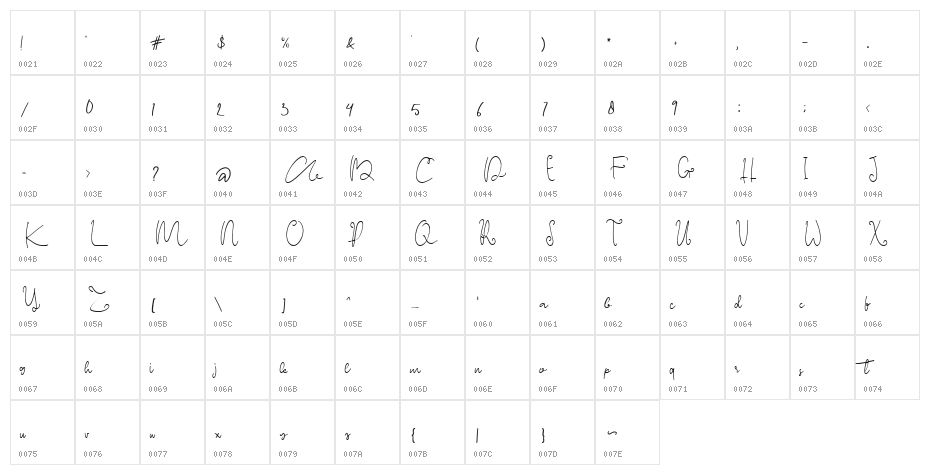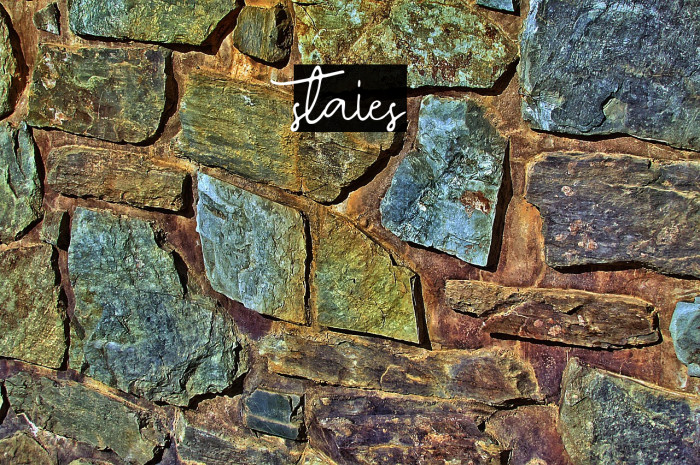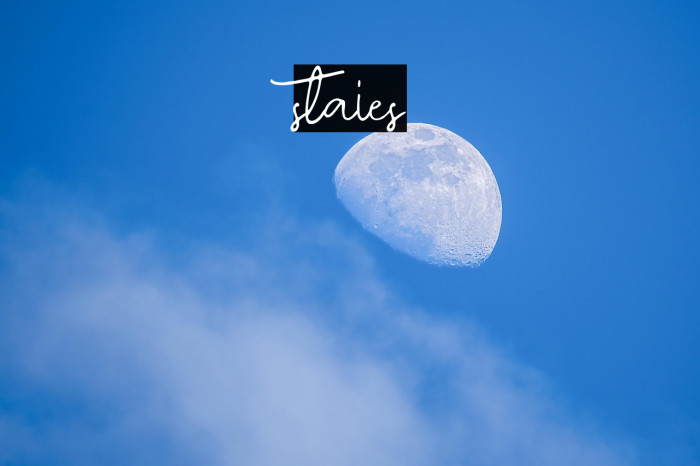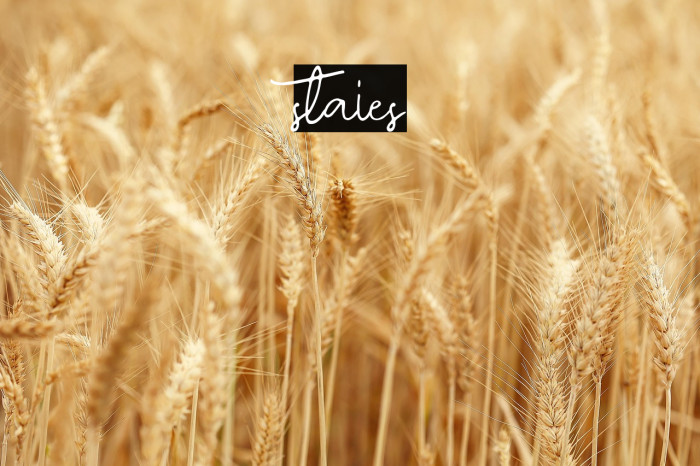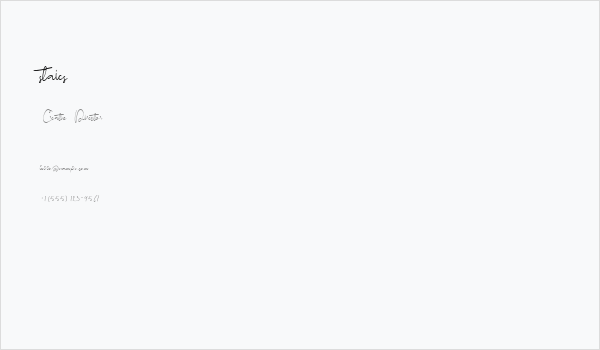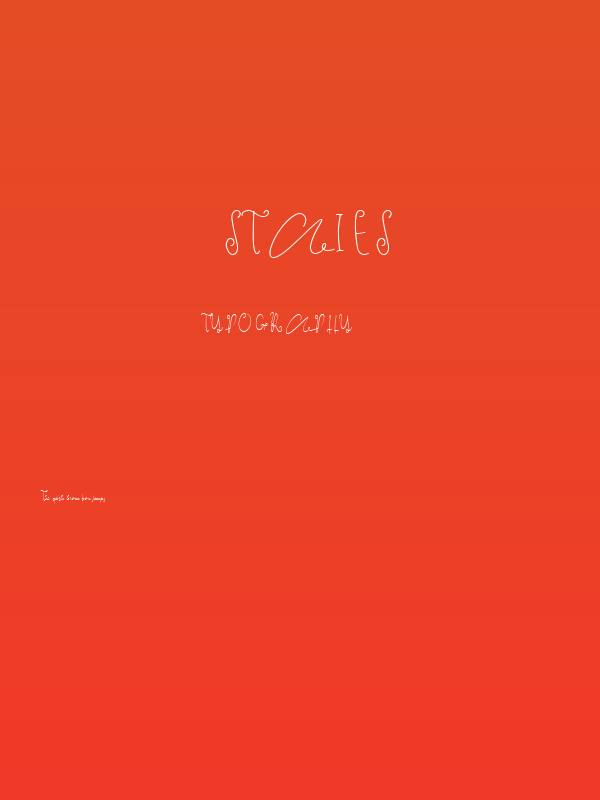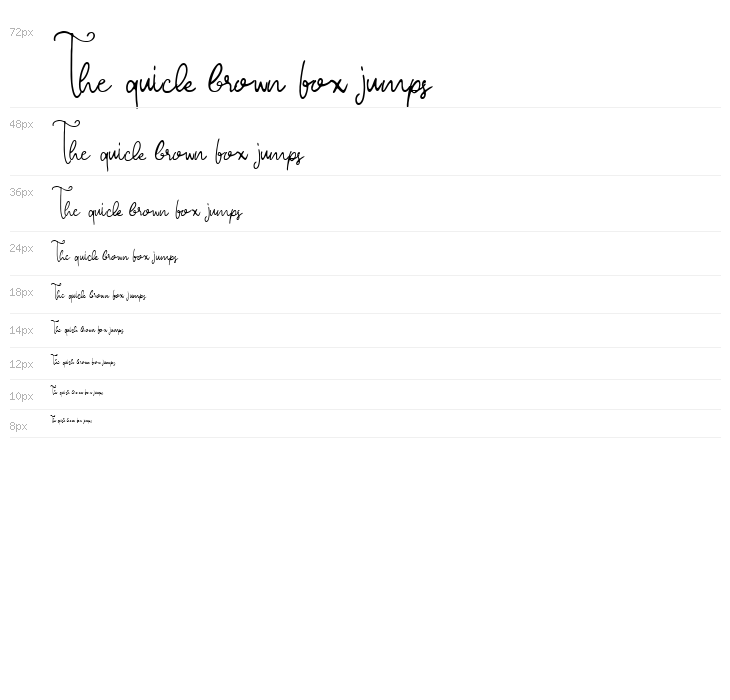
staies Font
staies Description
A whimsical, handwritten script font with tall, looping ascenders and descenders, featuring playful curves and a casual, informal style. The strokes are thin and consistent, giving it a light and airy appearance. Uppercase letters are especially decorative, while lowercase letters are more connected and fluid.
| Overall Style | Decorative, Playful, Casual |
| Use Case | Logos, Headlines, Invitations, Social media posts |
| Proposed Projects | Greeting cards, invitations, playful branding, quotes, social media graphics, children's books. |